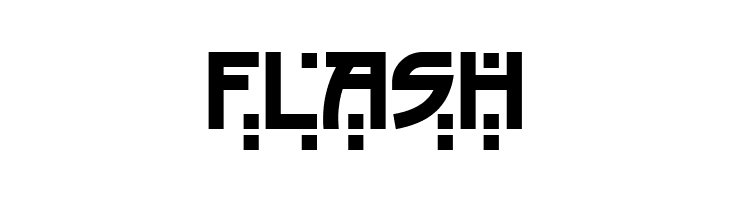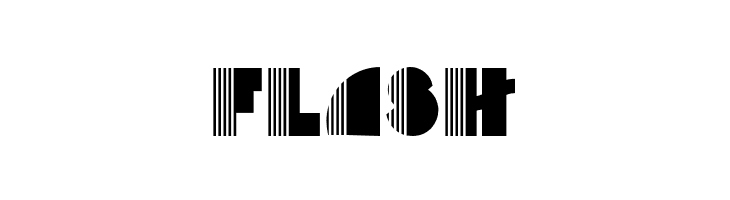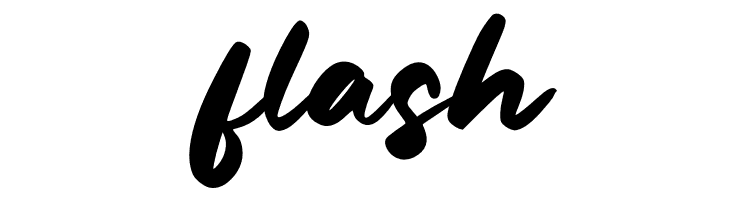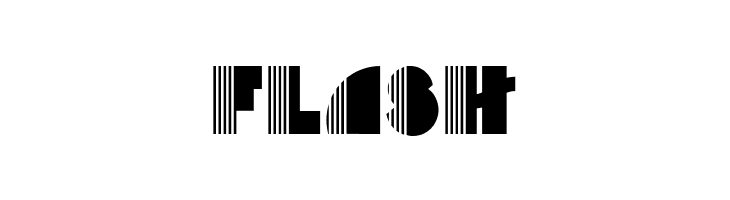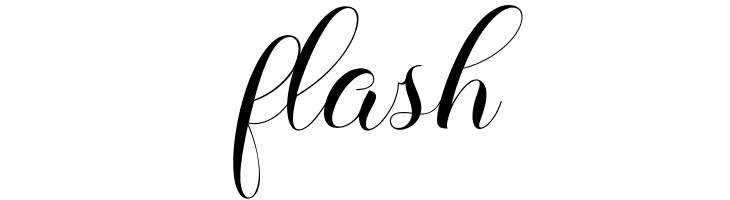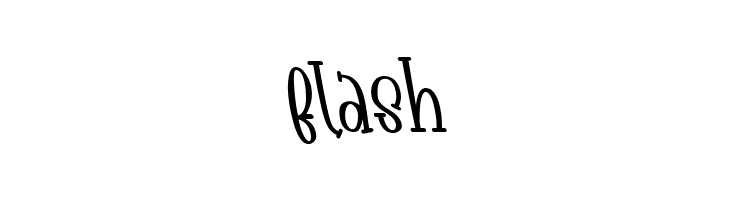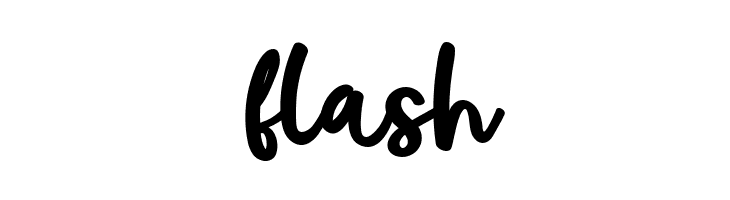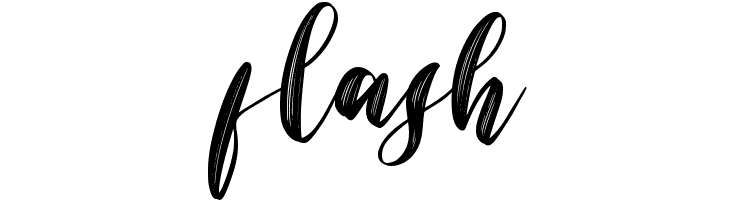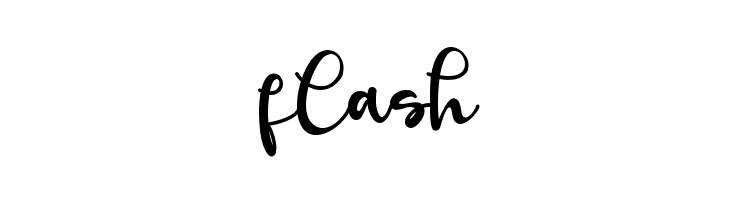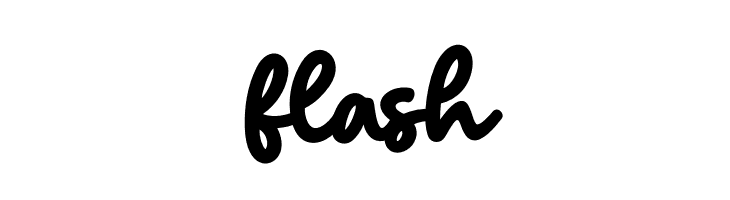
A bold, handwritten font with playful, rounded characters.
A bold, expressive script font with a lively, handwritten style.
A playful and whimsical font with elegant loops and swirls.
A dynamic and flowing italic font with elegant cursive letterforms.
A playful, tilted font with bold, condensed characters and a whimsical style.
A bold, expressive handwritten font with fluid strokes and a playful style.
A playful, hand-drawn font with whimsical and bold letterforms.
A bold, geometric font with a mix of solid and striped elements for a striking visual impact.
A bold, geometric font with striped patterns and strong visual impact.
A bold, textured, and decorative font with a hand-drawn, three-dimensional appearance.
A bold, decorative font with a 3D sketch effect and rugged outlines.
A bold, graffiti-style font with a distressed, scribbled texture.
A whimsical, decorative font with intricate swirl patterns.
A playful, bold outline font with rounded, smooth characters.
A bold, flowing script font with elegant curves and playful flourishes.
A bold, geometric font with tribal-inspired dot patterns.
A bold, geometric font with tribal-inspired embellishments.
An elegant script font with high contrast and ornate flourishes.
A modern, elegant handwritten font with a flowing style.
An elegant, flowing script font with dynamic strokes and artistic flair.
A playful balloon-themed font with rounded, bubbly characters.
A bold, retro font with rounded, bubbly letterforms.
A bold, segmented font with a modern, digital aesthetic.
An elegant, flowing script font with ornate uppercase and fluid lowercase letters.
A retro-style font with tall, narrow characters and sharp angles.
A bold, geometric font with angular edges and a strong, industrial feel.
A playful and elegant script font with a handwritten style.
A bold, angular font with intricate tribal-like patterns.
A bold, distressed font with a vintage, grunge aesthetic.